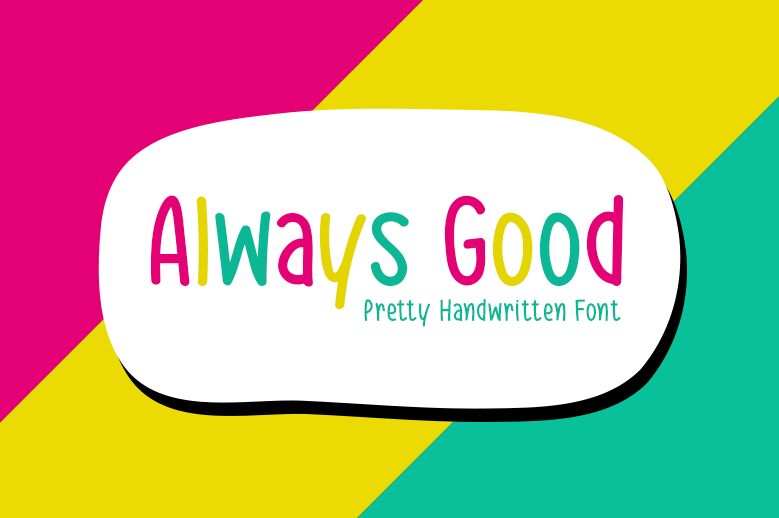
Always Good captures the warmth and charm of handwritten typography, embodying a playful yet refined aesthetic. Designed by Md Shohail Bhuian of Seemly Fonts, this font boasts a distinctive condensed style that exudes elegance while maintaining a casual feel. Its fluid lines and whimsical curves create a sense of spontaneity, making it visually engaging and inviting.
Perfect for branding, invitations, or any project requiring a personal touch, Always Good effortlessly enhances both digital and print designs. Its unique character adds flair to presentations or product packaging, leaving a memorable impression on audiences. Whether conveying joyfulness in event materials or sophistication in boutique branding, this font stands out with undeniable appeal.
Always Good